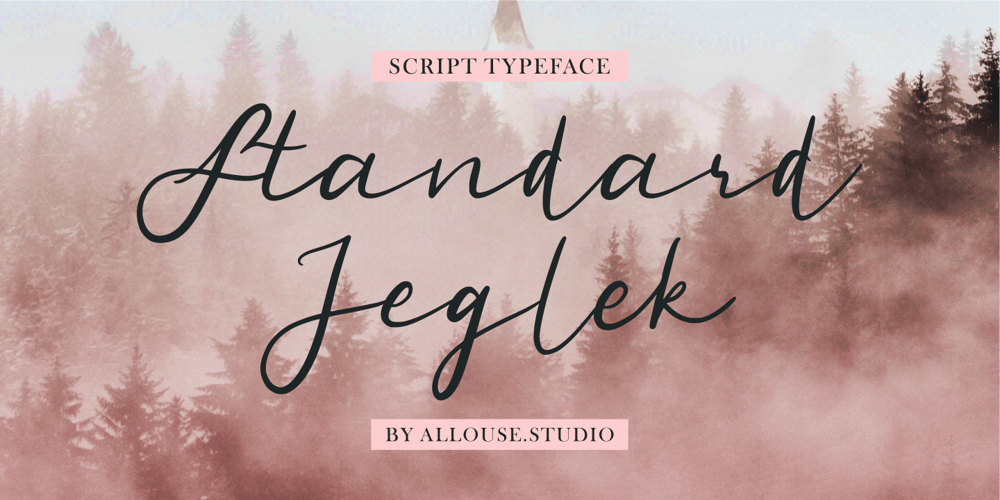
Standard Jeglek
Standard Jeglek font
Standard Jeglek Font Family was designed by Fachrizal Yusuf and published by Allouse Studio. Standard Jeglek contains 1 styles and family package options. Standard Jeglek a Script Typeface Font.Standard Jeglek come along with Ligatures, Swash, and Multi-Lingual Support to fulfill your need.Standard Jeglek is perfect for any tittle, logo, product packaging, branding project, megazine, social media, wedding, or just used to express words above the background.Enjoy the font, feel free to comment or feedback, send me PM or email. Thank You!